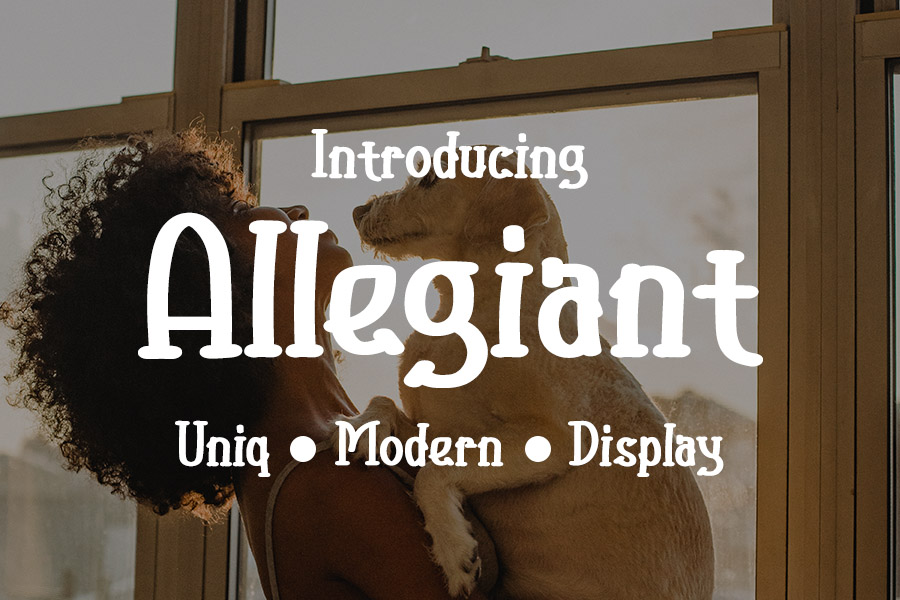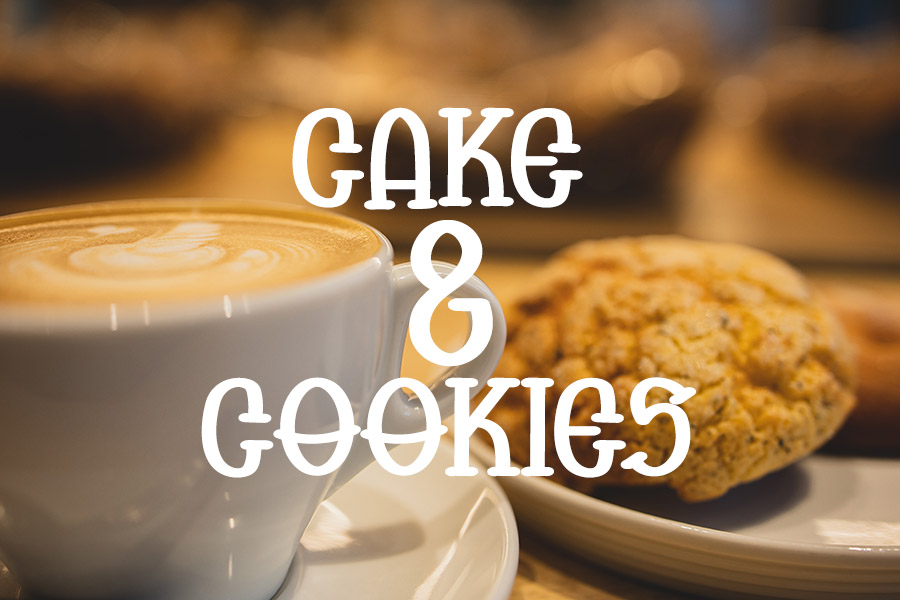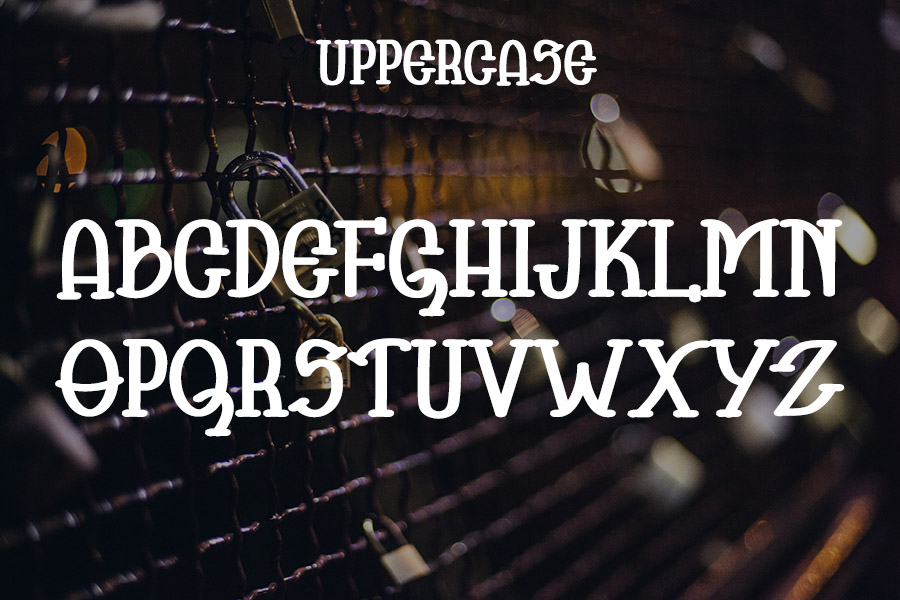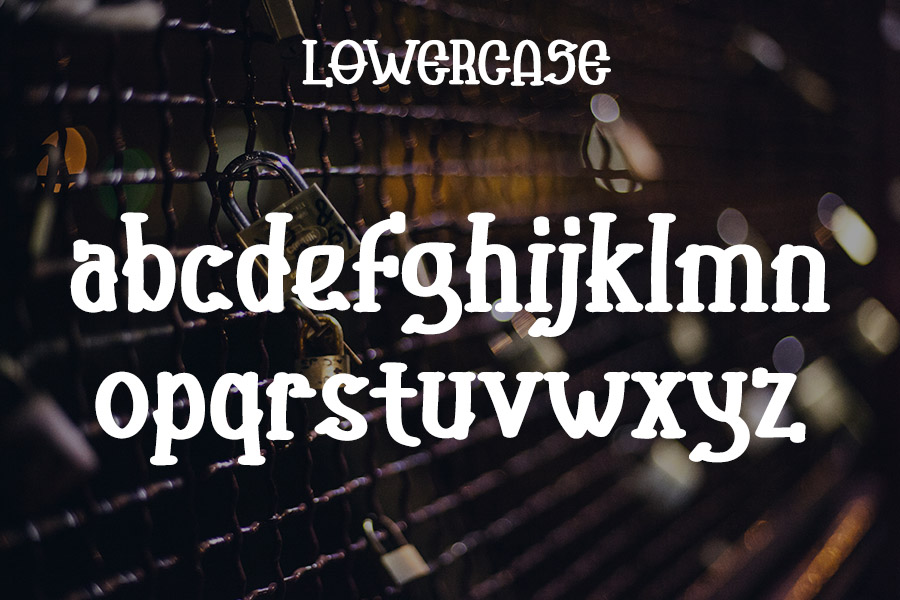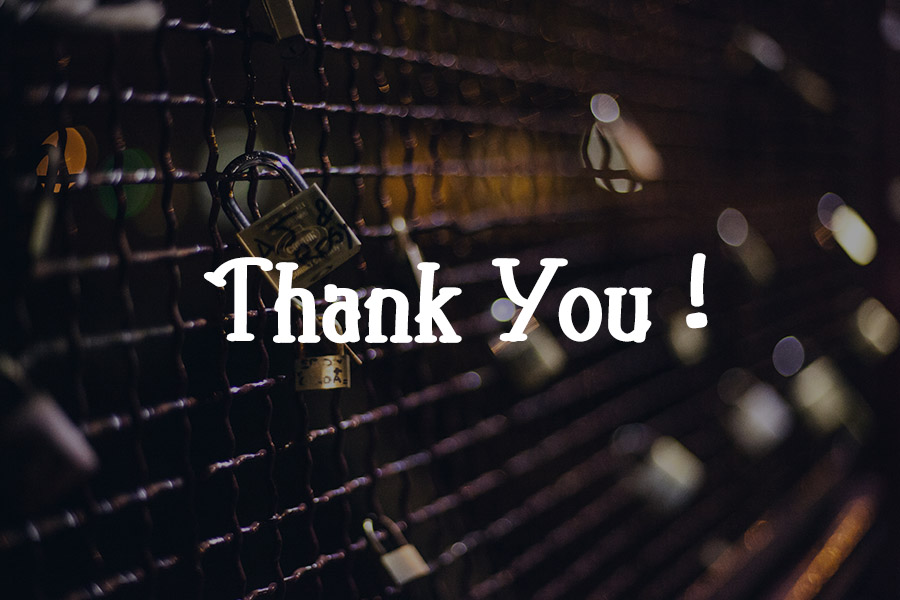
Allegiant Display Font
This is a simple and trendy display font. It is defined by smooth curves and is perfect for fashion branding or editorial designs. Add it confidently to your projects, and you will love the results.